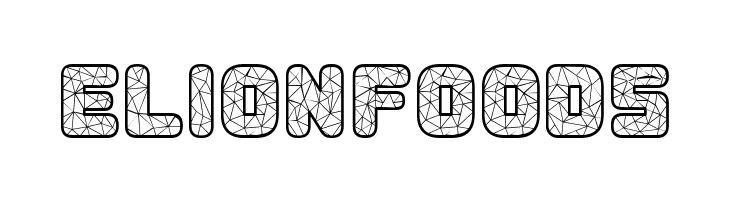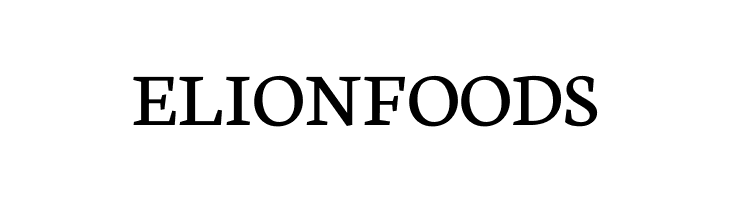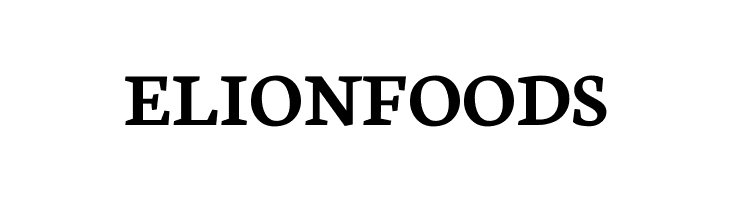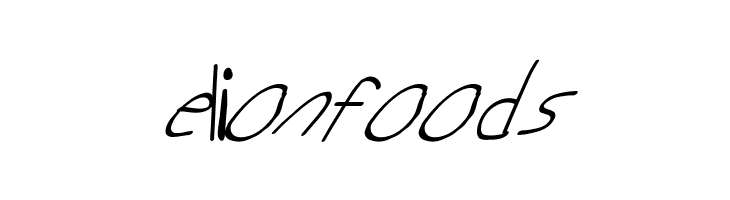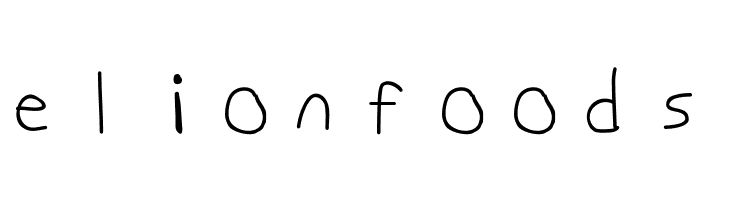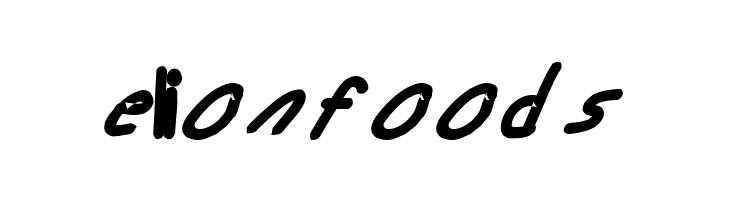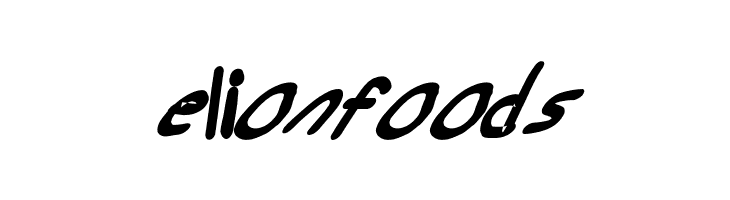
( Tom Booth - www.badtown.co.uk/ )
A bold, geometric font with a triangular mesh pattern, ideal for decorative use.
( Tom Booth - www.badtown.co.uk/ )
A bold, geometric font with intricate triangular patterns.
( Vladimir Nikolic - www.coroflot.com/vladimirnikolic )
A geometric, wireframe-style font with bold outlines and intricate triangular patterns.
( 21326 - 21326.info/ )
A light, elegant serif font with moderate contrast and rounded serifs.
( 21326 - 21326.info/ )
A modern serif font with elegant, readable characters and balanced proportions.
( 21326 - 21326.info/ )
A bold, classic serif typeface with strong lines and a slightly condensed appearance.
( Brian Sullivan Design - www.briansullivandesign.com/ )
A condensed, italicized handwritten font with a fluid and playful style.
( Brian Sullivan Design - www.briansullivandesign.com/ )
A playful, handwritten font with a casual and whimsical style.
( Brian Sullivan Design - www.briansullivandesign.com/ )
A bold, italicized handwritten font with a playful and dynamic style.
( Brian Sullivan Design - www.briansullivandesign.com/ )
A bold, italic, and condensed font with a dynamic and modern style.